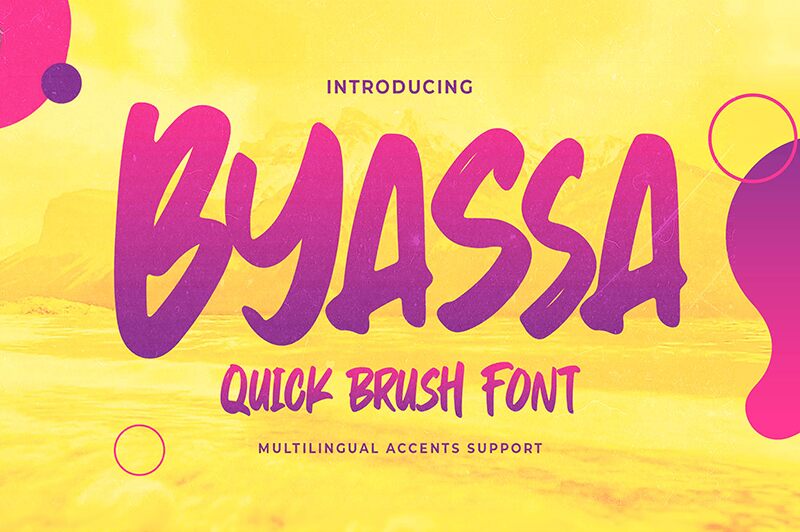
Byassa
Byassa, a bold and captivating brush-style font crafted by Gassstype, exudes a raw, energetic charm that immediately commands attention. With its condensed width and dynamic strokes, this font radiates a sense of movement and vitality, making it a standout choice for a wide range of design projects.
Byassa's bold, confident presence lends itself seamlessly to headlines, logos, and other eye-catching typographic elements. Its unique brush-like texture adds depth and character, elevating any design with a touch of artistry and individuality. Whether used in branding, packaging, or editorial layouts, Byassa's striking aesthetic will leave a lasting impression on the viewer.